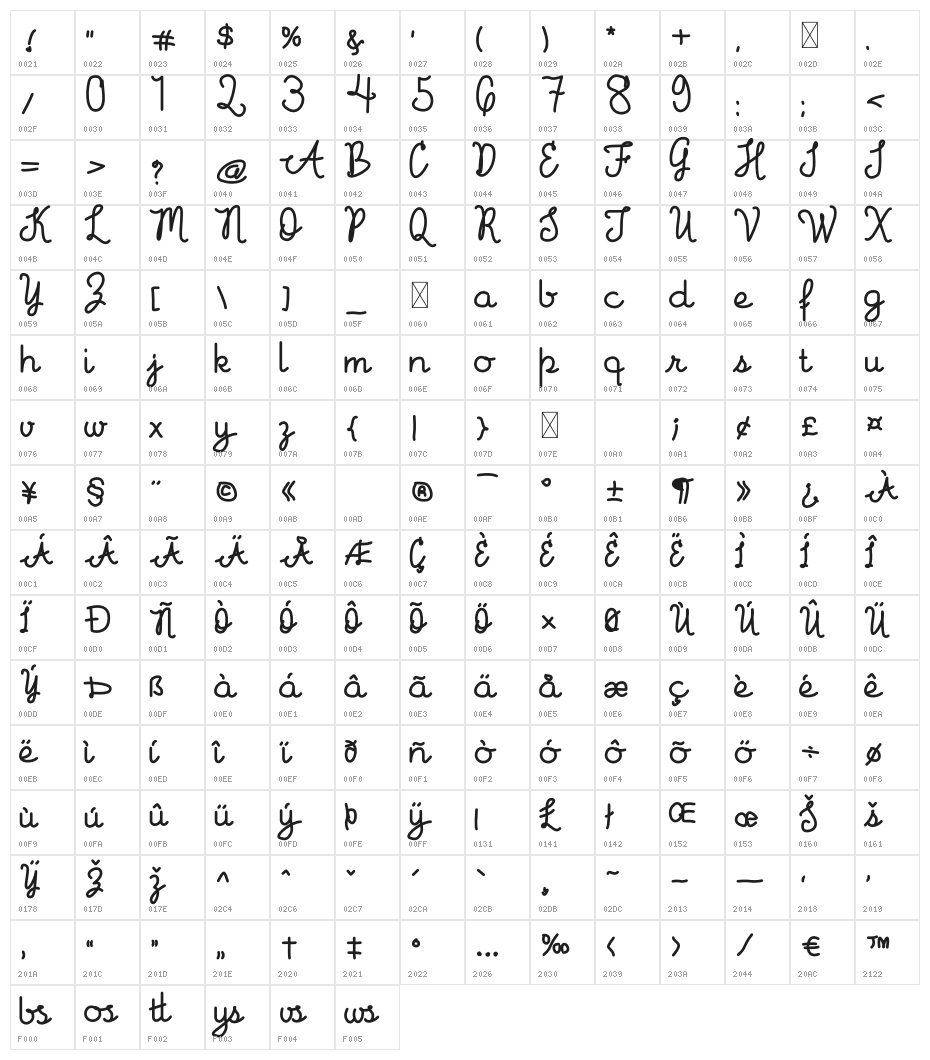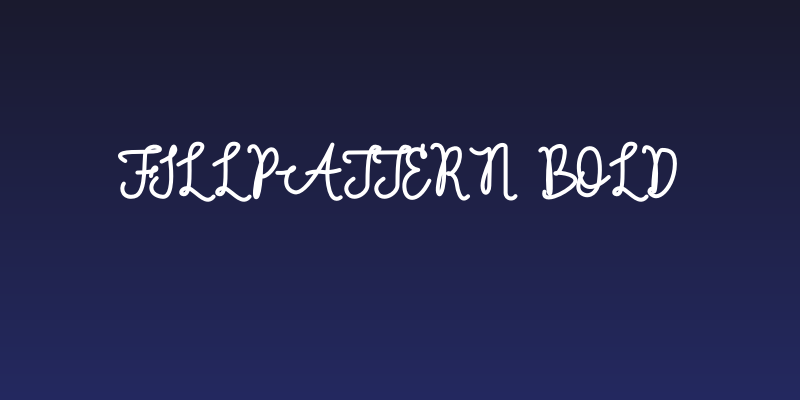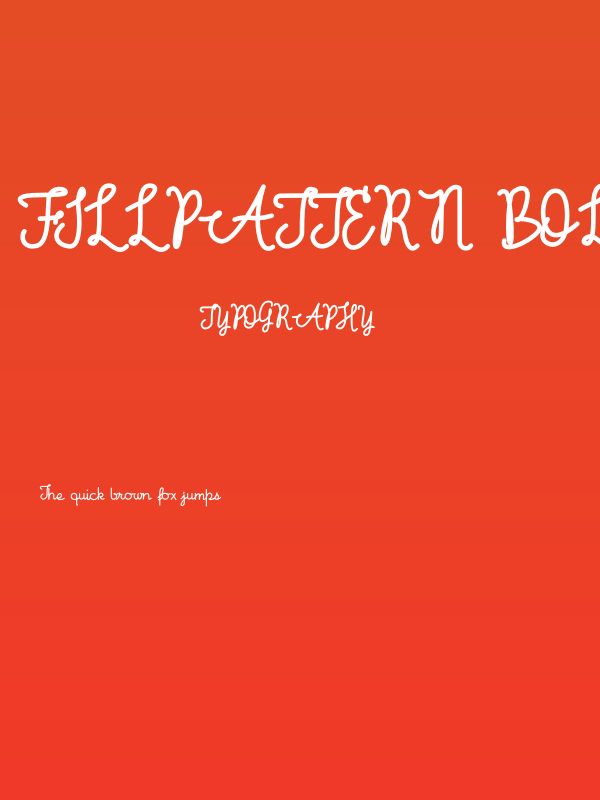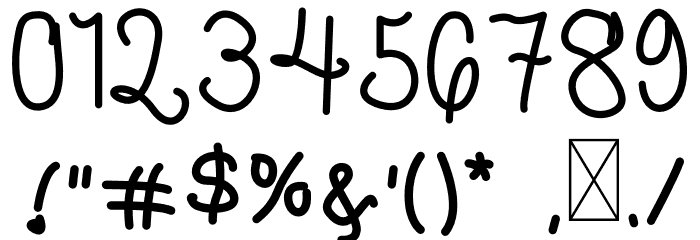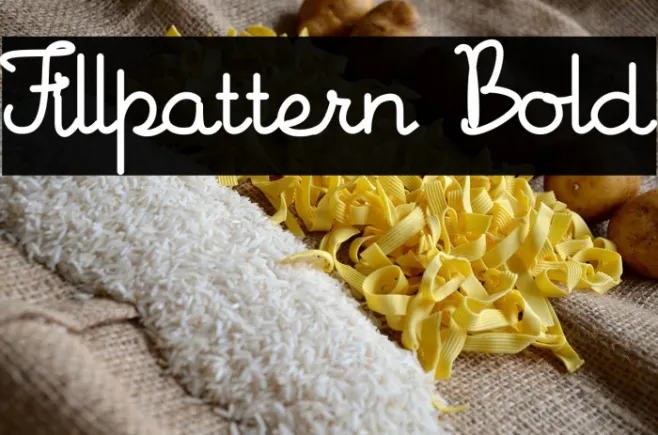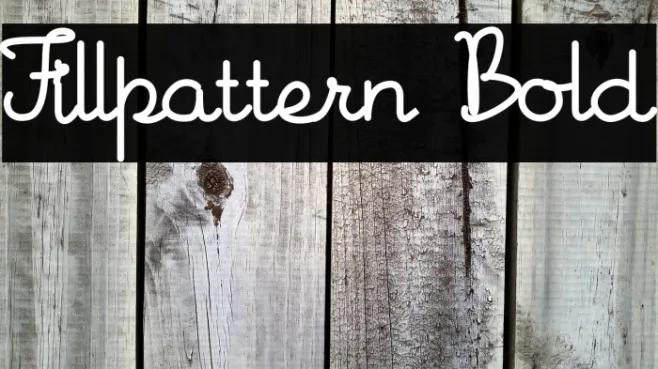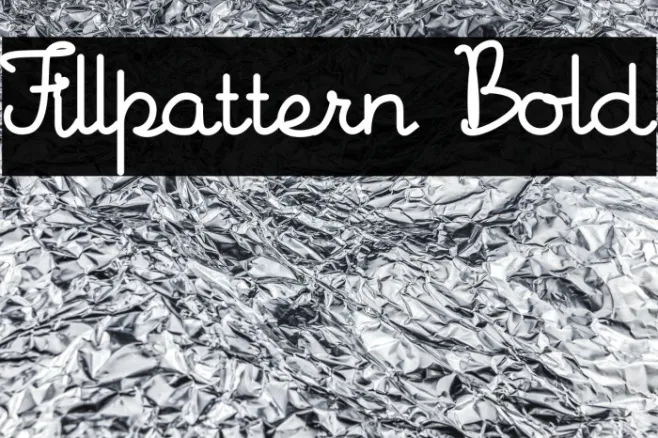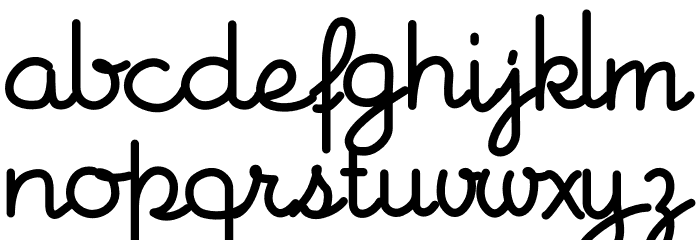
Fillpattern Bold Font
Fillpattern Bold Description
This font features a playful and whimsical script style with bold, flowing strokes. The characters are interconnected, giving a sense of continuity and fluidity. The uppercase letters are slightly more elaborate, with loops and curves that add a decorative touch. The lowercase letters maintain a consistent height, contributing to a harmonious appearance. The numerals are clear and easy to read, with a slight slant that matches the overall style. Special characters are integrated seamlessly, maintaining the font's cohesive look. This font's boldness ensures visibility and impact, making it suitable for various creative applications.
| Proposed Projects | Ideal for greeting cards, invitations, branding, and playful design projects. |